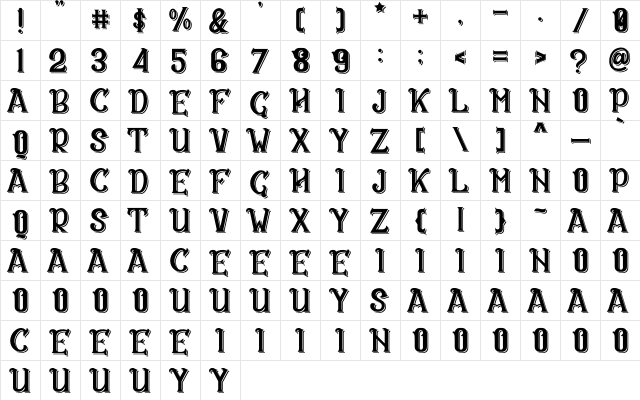
CS Rosalia Double Regular
| Designer | Craft Supply Co. |
Design Context for CS Rosalia Double Typeface
CS Rosalia Double takes a measured approach to typography — its balanced proportions and neutral character make it a reliable workhorse for both digital and print work.